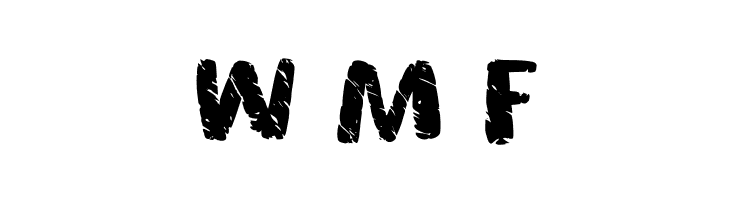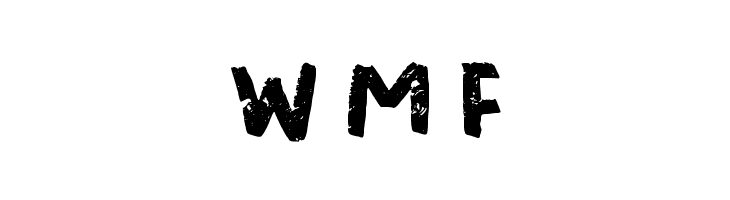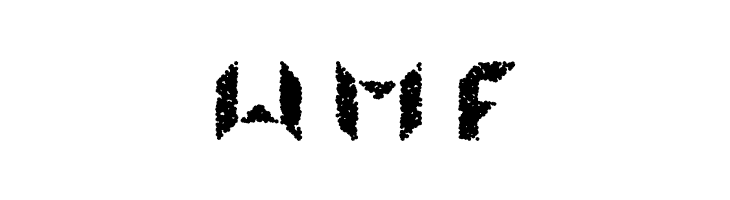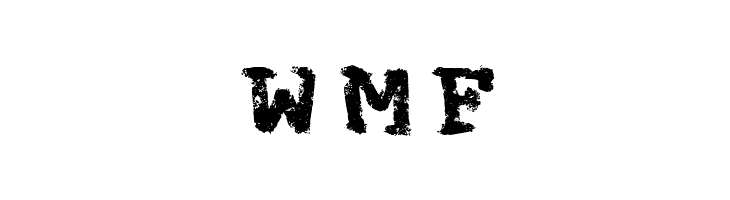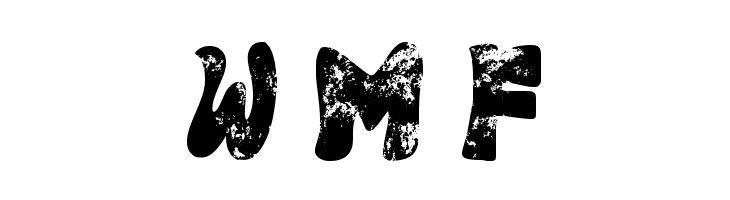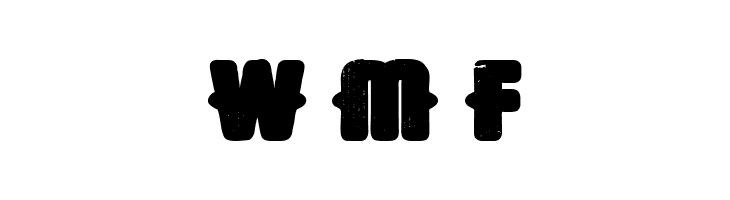
A bold, distressed font with a gritty, textured appearance ideal for edgy designs.
A bold, distressed font with a gritty, urban aesthetic.
A bold, textured font with a rugged, vintage feel.
A bold, distressed font with a gritty, urban aesthetic.
A bold, distressed font with a brush-like texture and dynamic, edgy style.
A bold, distressed font with a rugged, chaotic appearance.
A bold, distressed font with a grunge aesthetic and rugged texture.
A distressed, italicized font with a rugged, eroded appearance.
A bold, distressed font with an eroded, vintage texture.
A bold, distressed font with a rugged, cracked texture.
A bold, distressed font with an eroded, rugged appearance.
A bold, distressed font with a rugged, hand-crafted appearance.
A bold, distressed font with a hand-painted, gritty appearance.
A bold, distressed font with a unique halftone texture for a gritty, industrial look.
A bold, distressed font with a gritty, weathered texture.
A bold, distressed font with a rugged, vintage appearance.
A bold, distressed font with a grunge, vintage style and textured appearance.
A bold, distressed font with a rugged, urban style.
A bold, distressed font with a rugged, vintage appearance and thick, rounded strokes.
A bold, distressed font with a rough, textured appearance for a vintage feel.
A bold, distressed font with a rugged, urban aesthetic.
A bold, textured font with a gritty, industrial style.
A bold, distressed font with a gritty, rugged texture.
A bold, distressed font with a gritty, textured appearance.
A bold, distressed font with a gritty, urban street art style.
A bold, distressed font with a gritty, urban aesthetic.
A gritty, distressed font with a punk rock aesthetic and bold, blocky characters.
A gritty, distressed font with a rebellious punk rock aesthetic.
A distressed, grunge-style font with bold, narrow characters and a rugged appearance.
A bold, distressed font with a rugged, cracked texture.
A bold, distressed font with a gritty, textured appearance.
A bold, distressed font with a gritty, urban aesthetic.
A gritty, distressed font with a rugged, textured appearance.